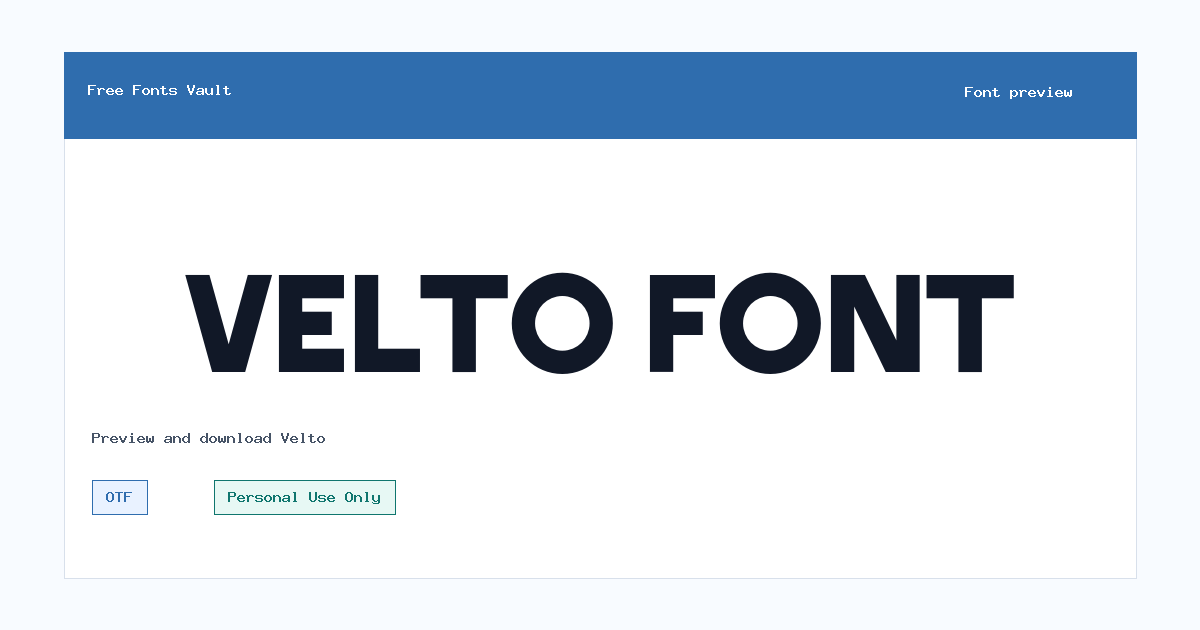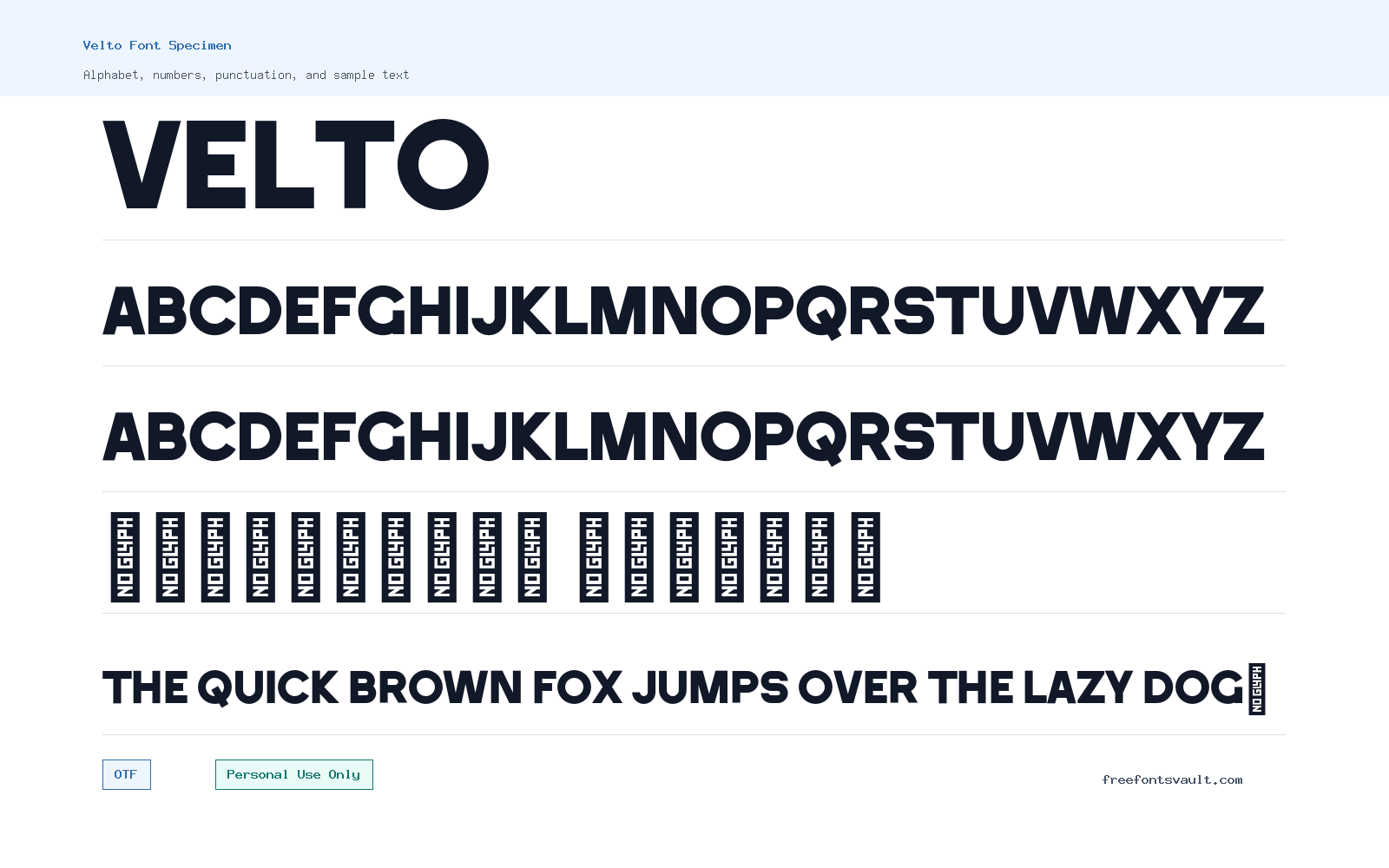
Velto
Velto font preview showing the family name
Velto Font
Velto font specimen showing alphabet, numbers, and sample text
Velto font.
Velto is a sans serif font with a clean regular style, suited to visitors who want a simple typeface for testing headings, short labels, and personal design drafts.
About Velto Font
Velto works best when you need a straightforward sans serif voice without adding too much decoration. The regular weight gives it a balanced look for short lines of text, display samples, social graphics, nameplates, and layout mockups. Because only a regular OTF style is listed for this font family, it is a good choice for quick previews rather than a full branding system that needs bold, italic, and multiple text weights.
• Clean sans serif style for short display text and layout testing
• Personal posters, title graphics, and social media drafts
• Logo mockups, labels, thumbnails, and clean heading experiments
What is Velto best used for?
Velto is best for short personal-use designs such as headings, simple posters, thumbnails, labels, and design mockups.